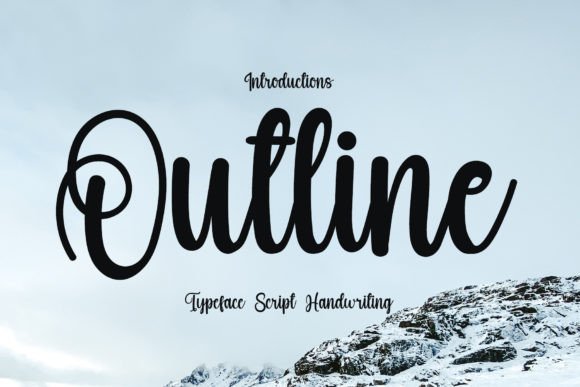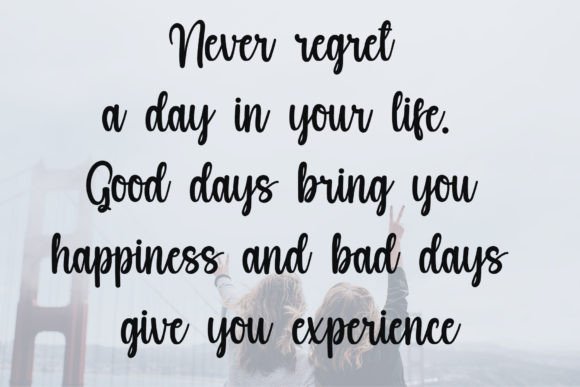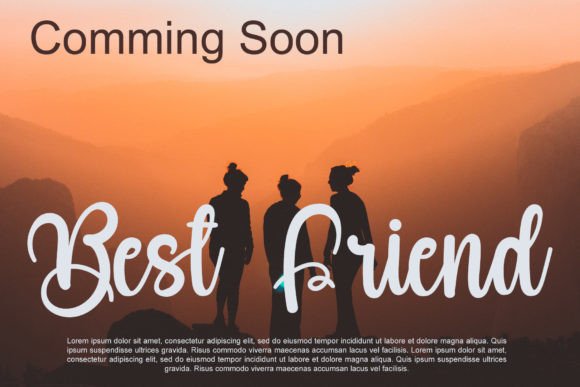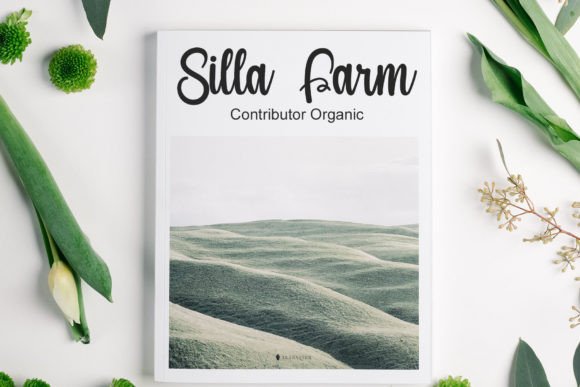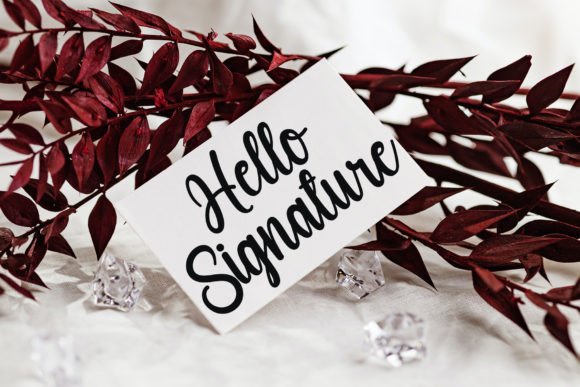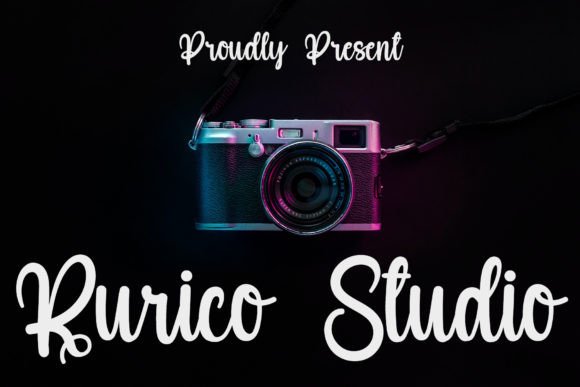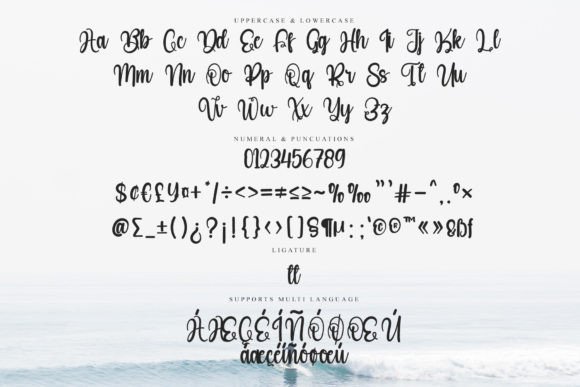
About Outline Font
Outline is a magical handwritten font meticulously crafted to infuse your designs with a touch of elegance. Whether you’re seeking fonts for Instagram posts or calligraphy scripts for DIY projects, this font has the enchanting ability to transform any creative idea into a true piece of art.
The magic of Outline lies in its careful design, which imparts an elegant and sophisticated aura to your text. The handwritten quality adds a personal touch, making it well-suited for a variety of applications, from social media posts to creative DIY endeavors.
The versatility of Outline is evident in its adaptability to different design contexts. Whether you’re creating stylish Instagram content, crafting calligraphy scripts for DIY projects, or working on any creative venture, this font seamlessly integrates with various themes and styles, enhancing the overall aesthetic.
Outline is more than just a font; it’s a magical tool that elevates the visual appeal of your creations. Its enchanting quality adds a touch of sophistication to your text, turning it into a visual masterpiece. Whether you’re a social media enthusiast, a DIY enthusiast, or a designer looking to add elegance to your projects, Outline is a font that brings a magical charm to your creative endeavors.